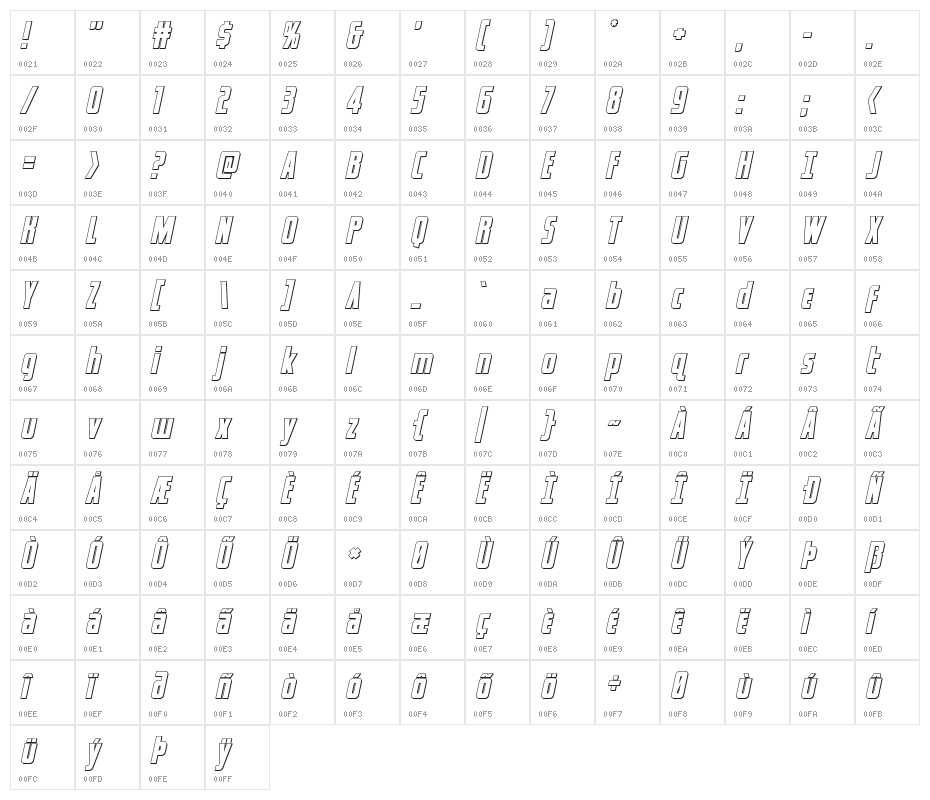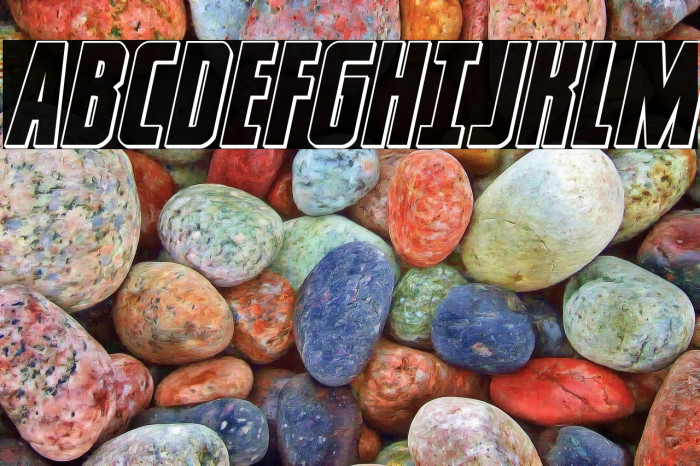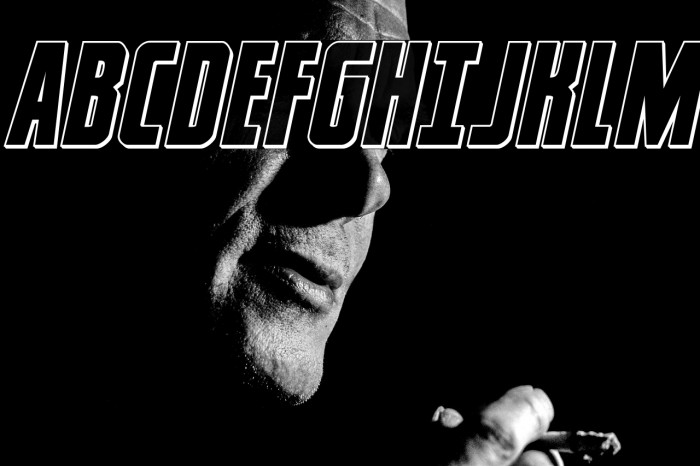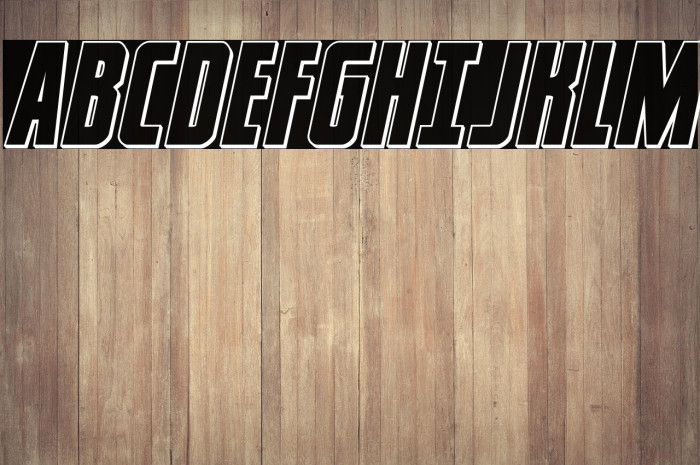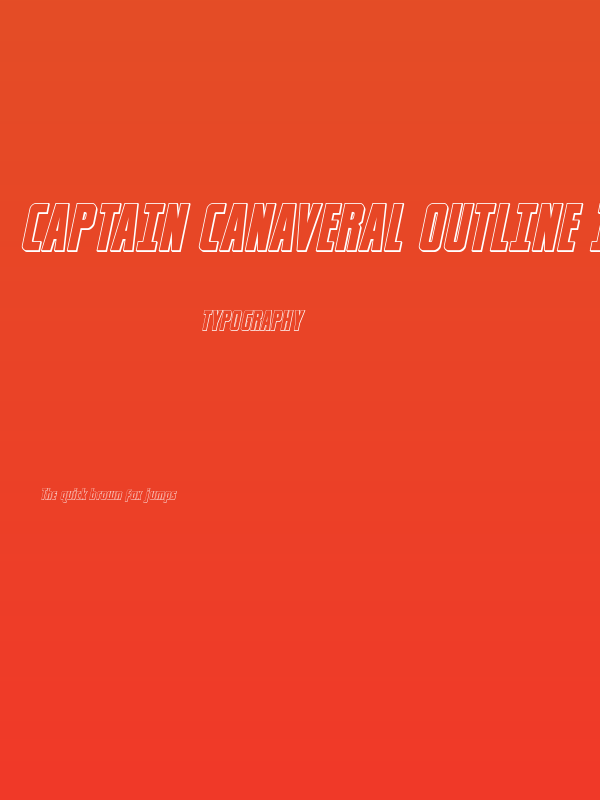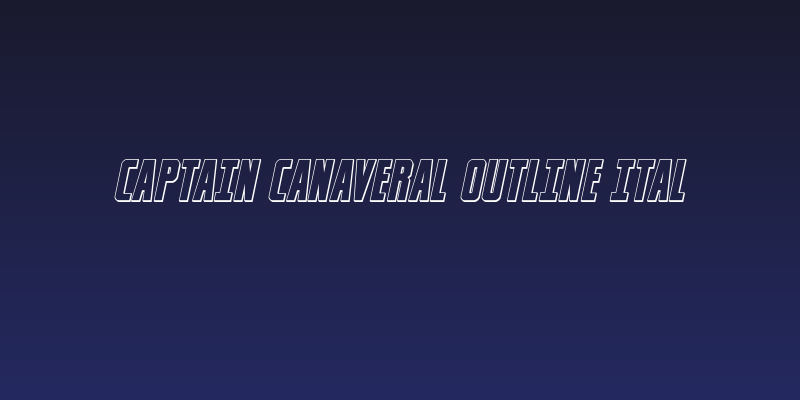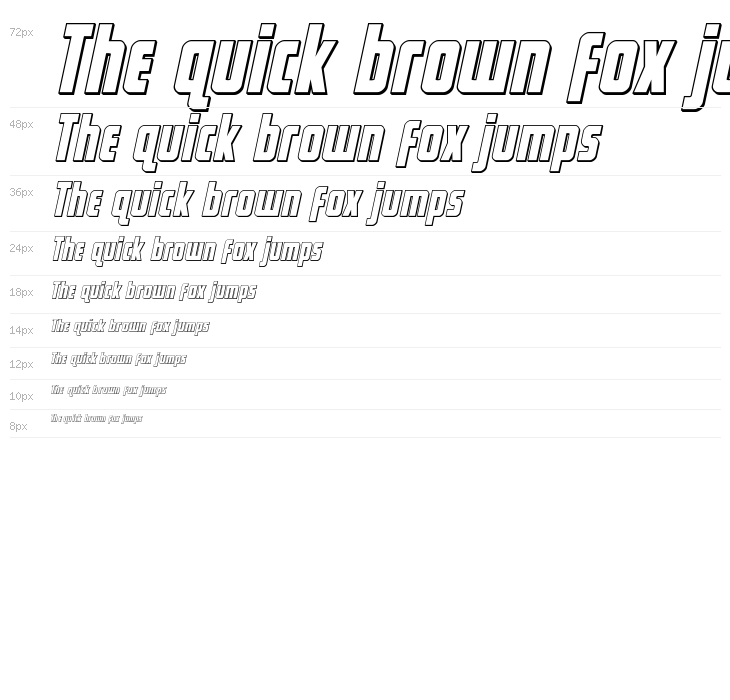
Captain Canaveral Outline Ital Font
Captain Canaveral Outline Ital Description
This font features a bold, outline style with a modern and dynamic appearance. The letters are slanted, giving it an italicized look, which adds a sense of motion and energy. The uppercase and lowercase characters maintain a consistent design, with sharp angles and clean lines. The numerals and special characters follow the same stylistic approach, ensuring uniformity across all glyphs. The outline effect creates a striking visual impact, making it suitable for attention-grabbing designs. The font's geometric structure and clear legibility make it versatile for various applications.